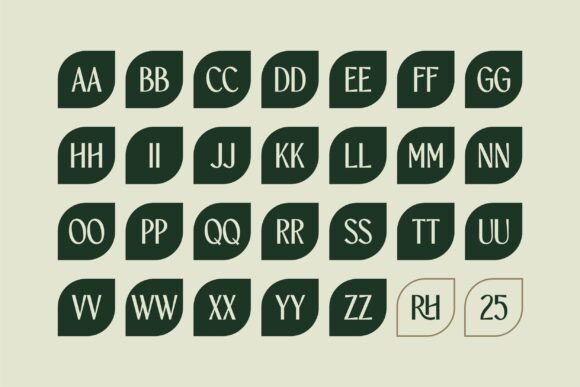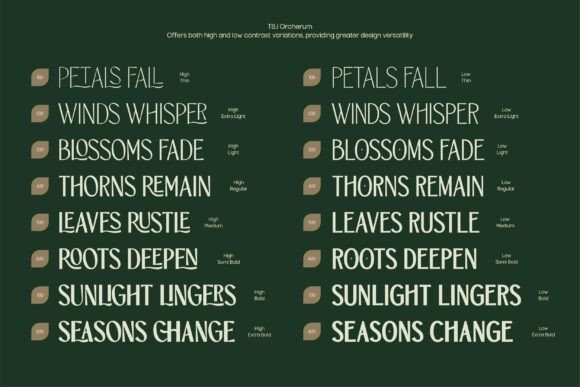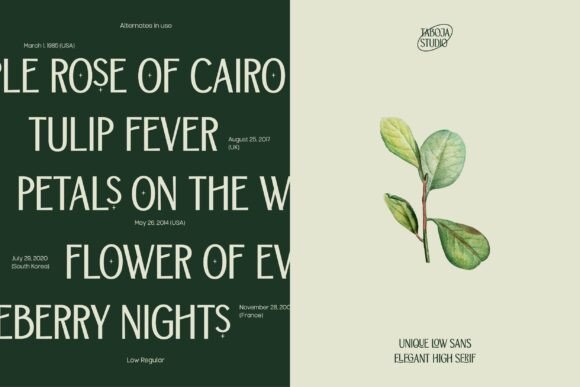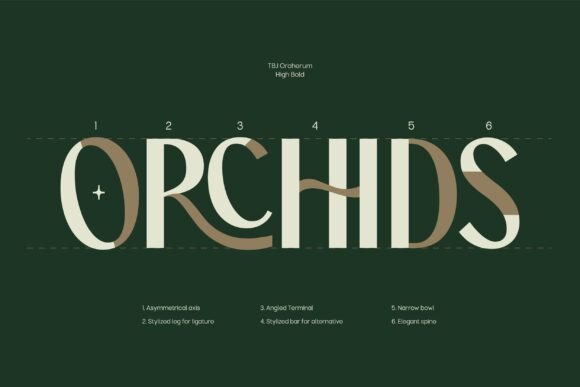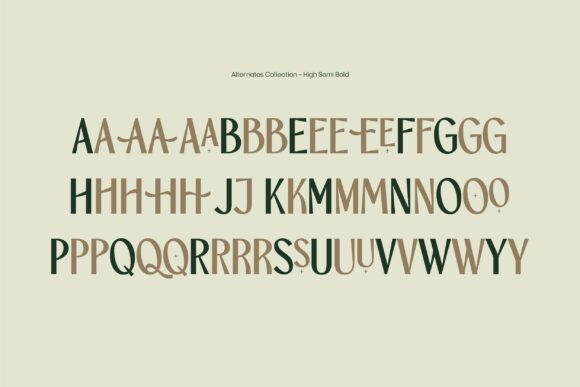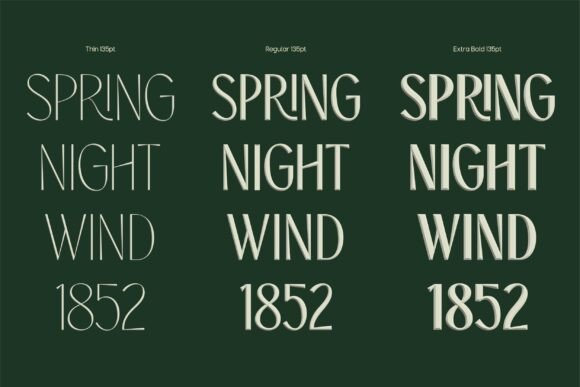
Introduction to Orcherum Font
As a designer, you’ve probably experienced that moment when the perfect font makes all the difference in a project. The text springs to life, the message resonates, and the entire creative vision comes together in harmony. For many of us, that magic happens with the Orcherum Font.
With its refined sophistication and versatility, the Orcherum Font is a design resource that can elevate any creative project. Whether you’re working on a branding campaign, designing a logo, or crafting a stunning visual identity, this high-quality font is sure to impress. And the best part? You can download it for free, with a transparent background that lets your design shine.
But what sets the Orcherum Font apart from other design fonts is its exceptional quality and modern functionality. Its expanded weight range, clean curves, and precise detailing make it perfect for a wide range of applications, from delicate light weights to bold and powerful headlines. With the Orcherum Font, you’ll have the creative freedom to bring your ideas to life in stunning style.
Key Features of Orcherum Font
- High-quality design resource with a unique, elegant style perfect for creative projects
- Features a transparent background, making it easy to customize and integrate into any design
- Includes a wide range of glyphs and characters, making it suitable for various languages and applications
- Available in 5 different font weights, from Light to Bold, to suit different design needs
- Designed with a high resolution of 300 DPI, ensuring crisp and clear text display
- Perfect for use in graphic design, digital art, and other creative projects where a high-quality font is required
Honest Review: Orcherum Font
As a designer, I’m always on the lookout for high-quality design resources to elevate my creative projects. Recently, I stumbled upon the Orcherum Font, and I’m excited to share my honest review.
- ✨ Unique and elegant design: The Orcherum Font boasts a beautiful, handcrafted feel that sets it apart from more generic fonts.
- ✨ High-quality glyphs: The font includes a wide range of glyphs, including international characters, making it a great choice for designers working on global projects.
- ✨ Transparent background: The font’s transparent background makes it easy to layer over images or other design elements, giving me a lot of flexibility in my designs.
- ⚠️ Limited font weights: The Orcherum Font only comes in a few font weights, which may limit its versatility in certain design applications.
Overall Impression:
Overall, I’m impressed with the Orcherum Font’s unique design and high-quality glyphs. While it has some limitations, I think it’s a great choice for designers working on creative projects that require a touch of elegance and sophistication. And the best part? It’s available for free download, making it a valuable resource for designers on a budget.
Tips for Getting the Most Out of Orcherum Font
For a high-quality design, use the Orcherum Font on a transparent background to create a clean and modern look. Experiment with different font sizes and combinations to add depth and visual interest to your project.
The Orcherum Font is ideal for creative projects such as logos, branding, and marketing materials. Its high-quality design and transparent background make it perfect for use in presentations, social media graphics, and websites.